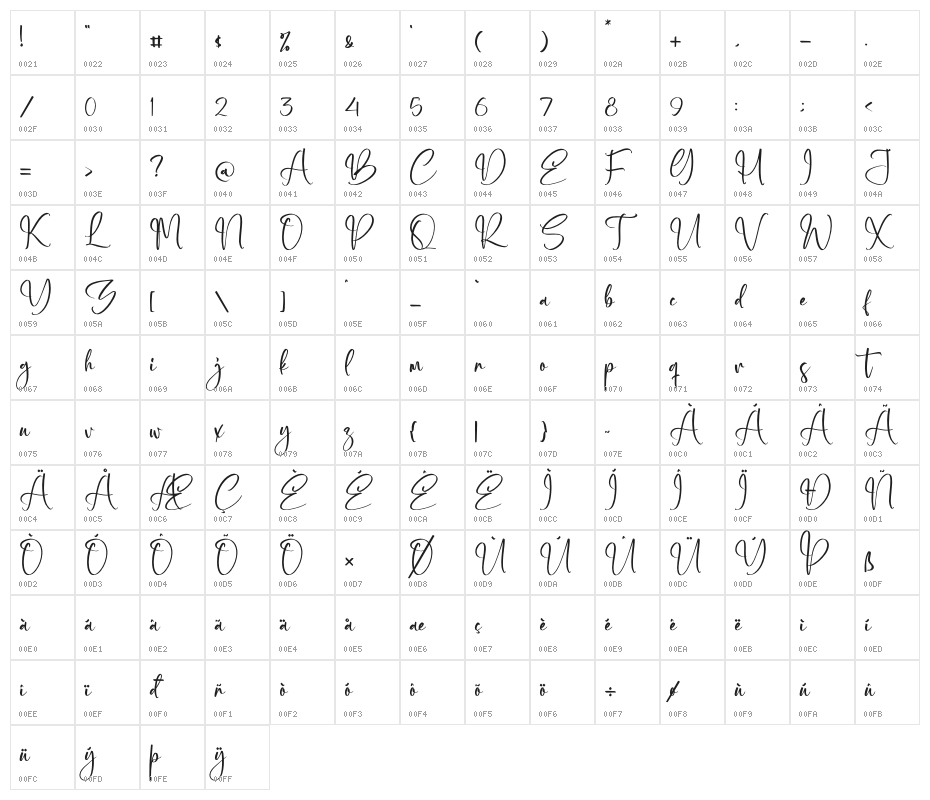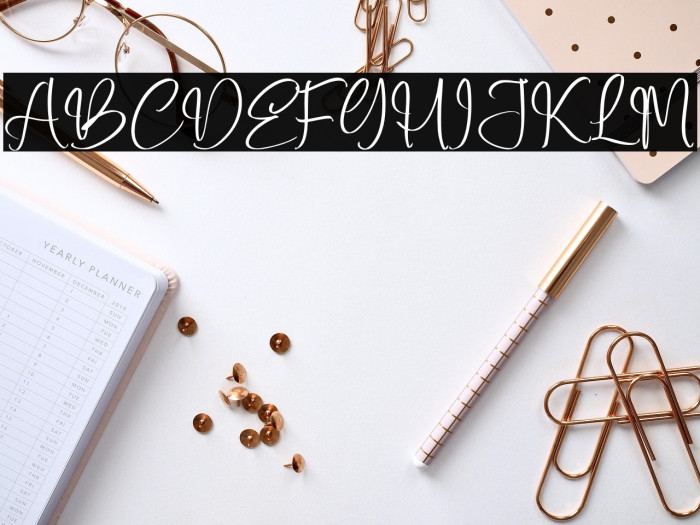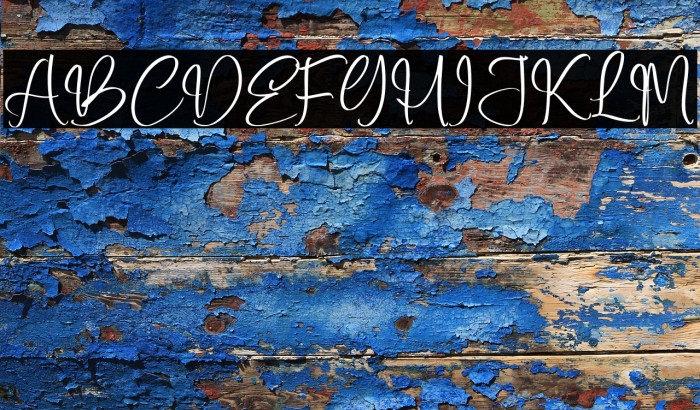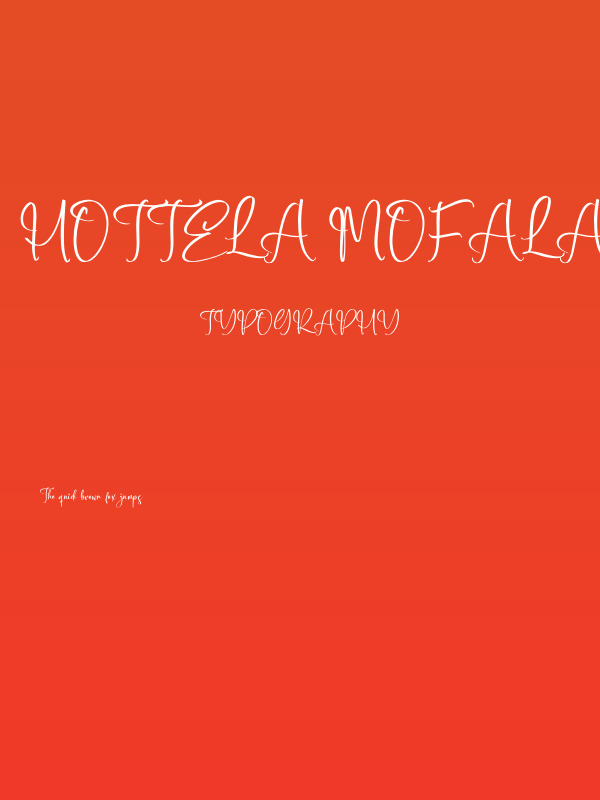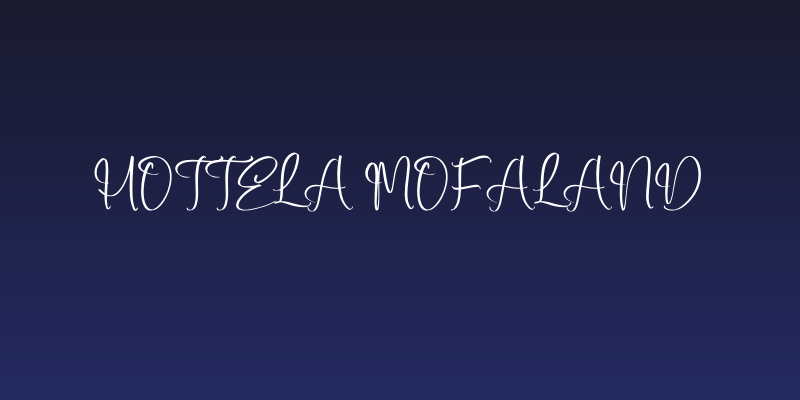
Hottela Mofaland Font
Hottela Mofaland Description
This font features a flowing, cursive style with elegant loops and swirls, giving it a handwritten appearance. The uppercase letters are tall and slender, with a consistent stroke width that adds to its graceful look. The lowercase letters are more varied in height, with some characters extending below the baseline, enhancing its dynamic feel. The numbers maintain the same cursive style, ensuring uniformity across the character set. Special characters are also included, matching the overall aesthetic with their fluid curves. This font is ideal for projects that require a personal touch, such as invitations, greeting cards, or branding materials.
| Proposed Projects | Ideal for invitations, greeting cards, branding materials, and personal projects. |